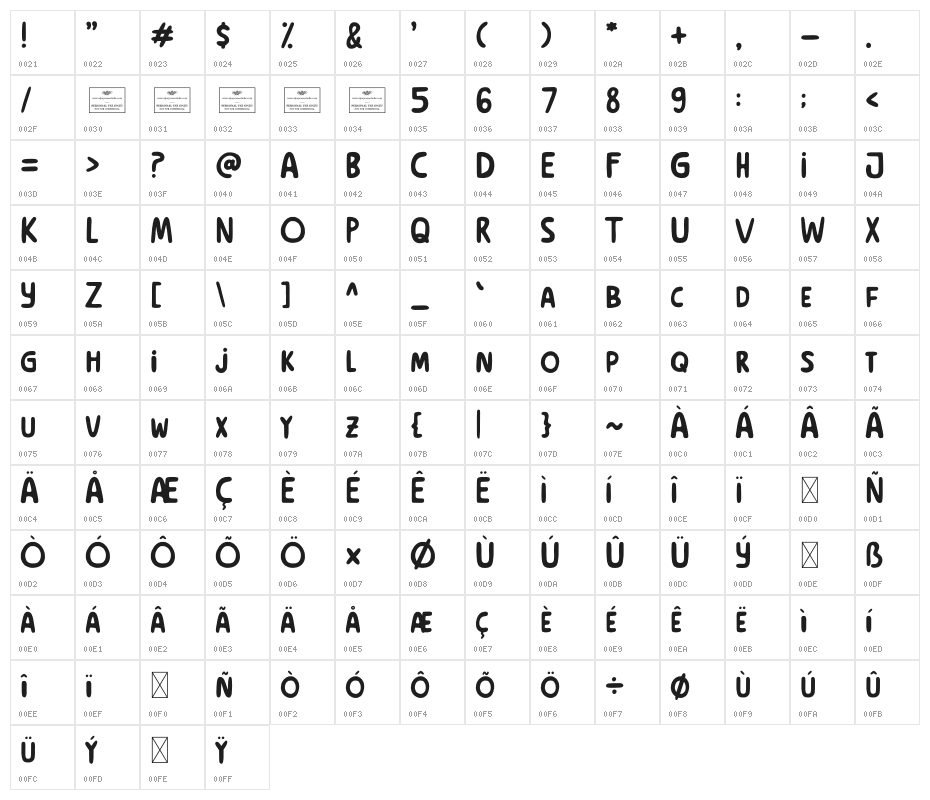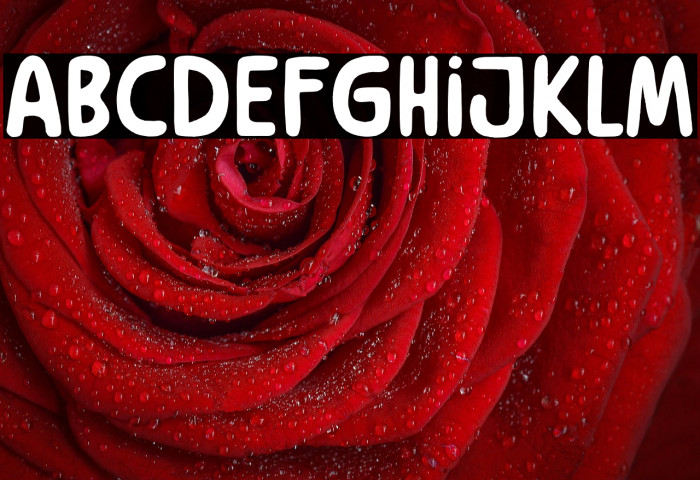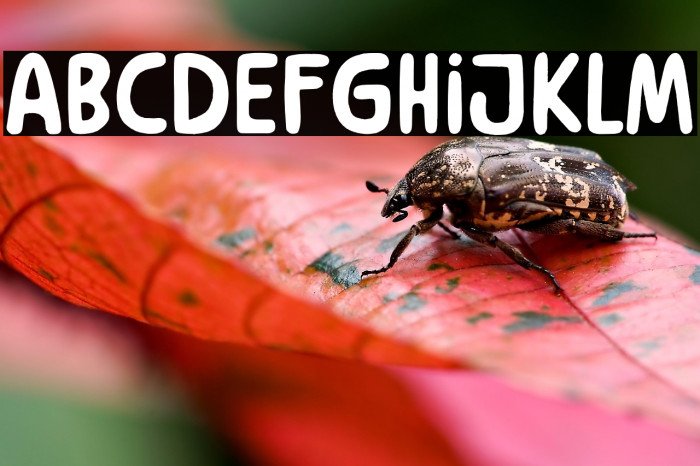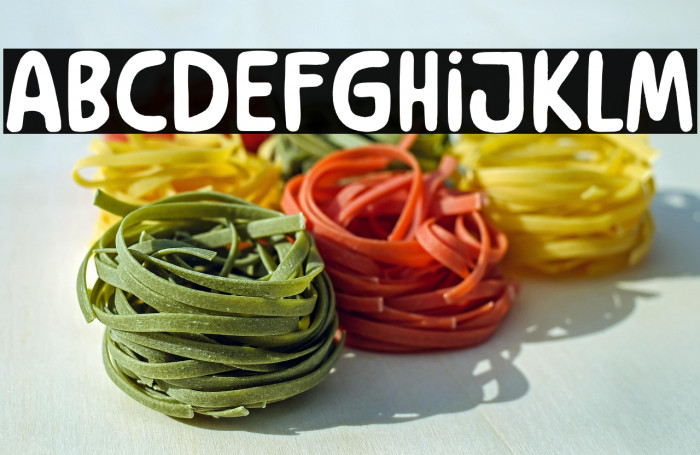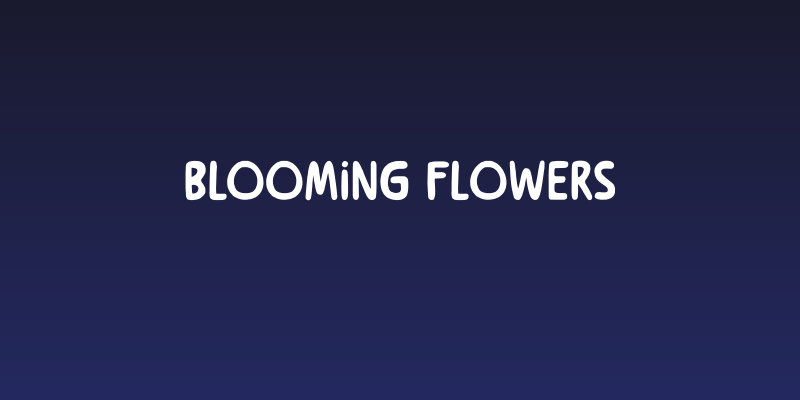
Blooming Flowers Font
Blooming Flowers Description
This font features a playful and rounded style, characterized by its bold and slightly irregular letterforms. The letters have a hand-drawn appearance, giving them a friendly and approachable feel. The strokes are consistent in weight, contributing to a cohesive look across all characters. The overall design is informal, making it suitable for projects that require a touch of whimsy and creativity. The characters are well-spaced, ensuring readability while maintaining a casual aesthetic. The font includes a full set of uppercase and lowercase letters, numbers, and a variety of special characters, making it versatile for different design needs.
| Use Case | Logos, Headlines, Informal Text |
| Proposed Projects | Ideal for children's books, playful branding, greeting cards, and creative posters. |